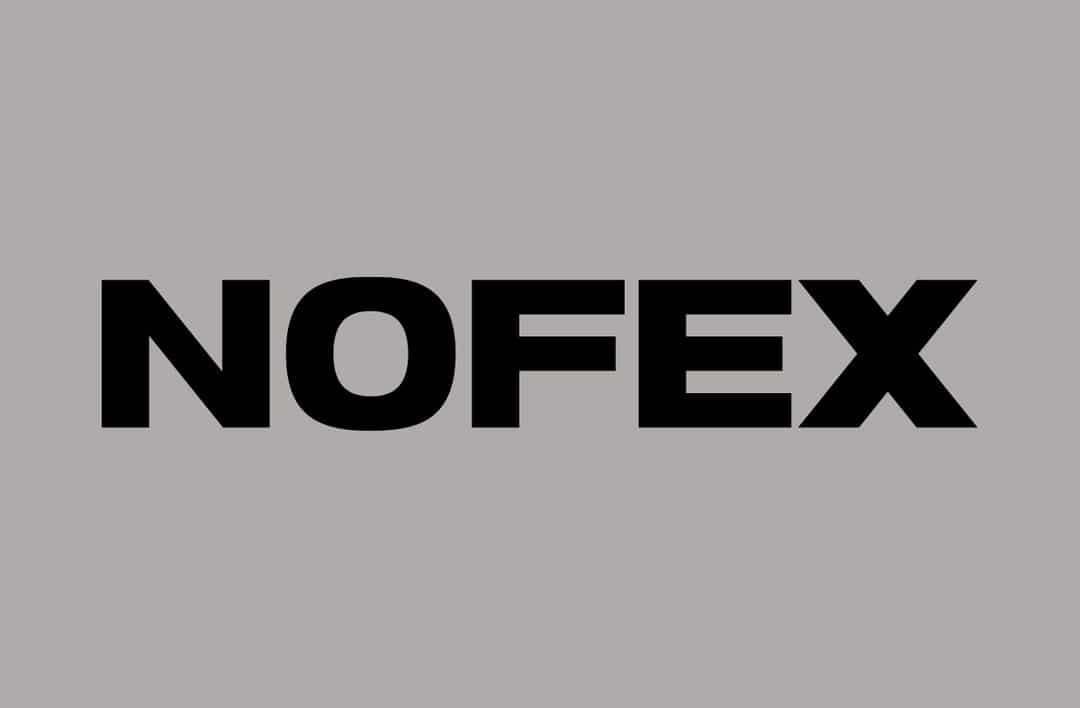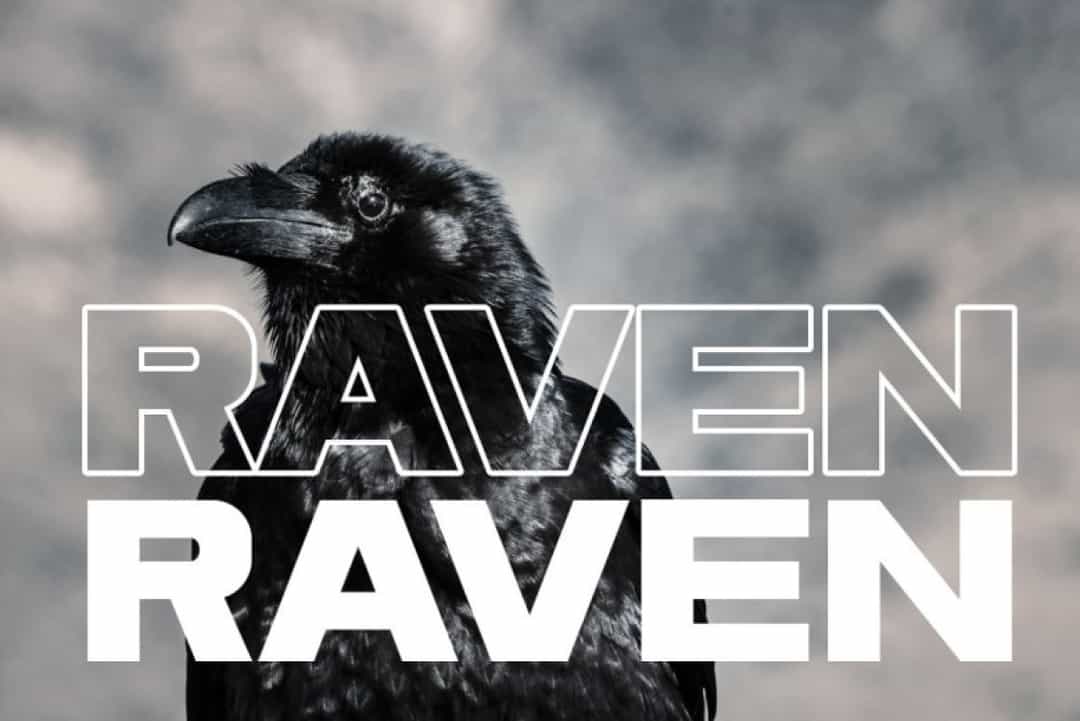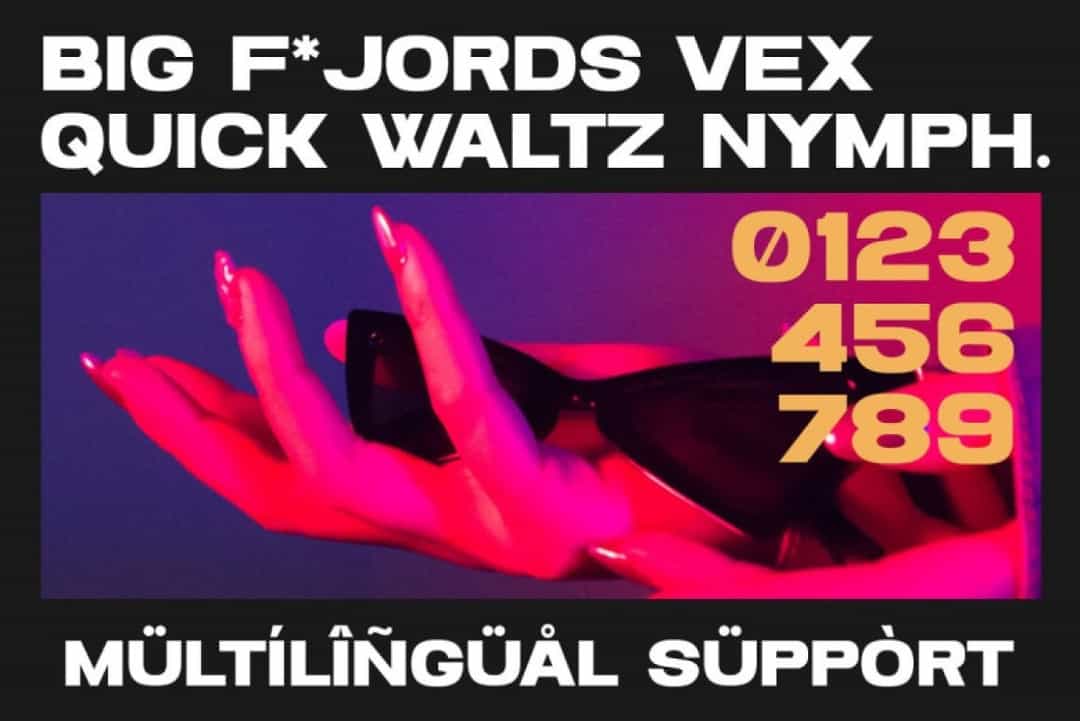
Nofex is an all-caps font with a large body that offers high contrast. This font looks modern when combined with striking design shades, boasting its crisp yet elegant style that easily integrates with various styles that require unique design elements.